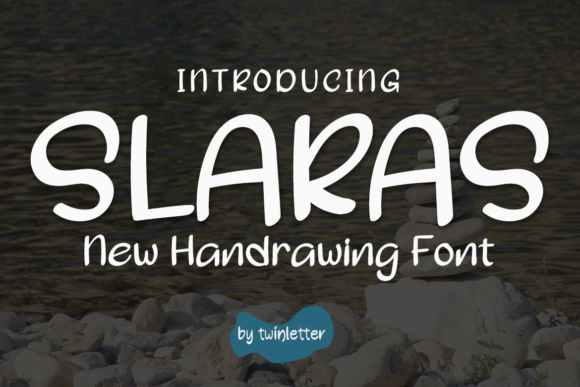
Unleash your creativity and express your unique style with Slaras Font - the ultimate display font for calligraphy enthusiasts! A creation of twinletter, Slaras is a charming handwritten font that exudes warmth and friendliness. From captivating Instagram posts to heartfelt DIY projects, Slaras transforms every creative concept into a breathtaking masterpiece.
Immerse yourself in the world of enchanting letters as Slaras gracefully dances across your screens and pages. Each character, meticulously crafted with a personal touch, carries a story, evoking emotions and leaving a lasting impression. Whether you're a seasoned calligrapher or just starting your lettering journey, Slaras is your perfect companion, guiding you towards stunning creations.
Let your imagination soar as you explore the endless possibilities of Slaras. Its versatility knows no bounds, seamlessly adapting to a myriad of projects. Whether you're designing wedding invitations that radiate elegance or creating personalized greeting cards that spread joy, Slaras effortlessly adds a touch of magic to every endeavor.
With Slaras by your side, turn your creative visions into tangible works of art. Its user-friendly nature makes it accessible to both seasoned designers and those new to the world of typography. Dive into the world of Slaras and unlock a treasure trove of creative opportunities, transforming your digital and physical spaces into captivating expressions of your individuality.